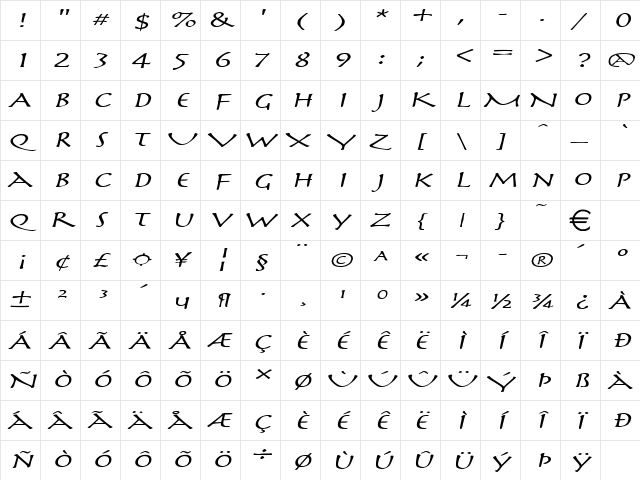
MythologyExtended Italic
Design Context for MythologyExtended Typeface
MythologyExtended is a composed and adaptable typeface that performs quietly and consistently across a wide range of design contexts. The dynamic lean of this cut emphasises speed and emphasis in any layout.
Pro Tip: Try MythologyExtended for annotation and caption copy alongside an upright companion — the contrast in angle creates a dynamic but ordered typographic system.